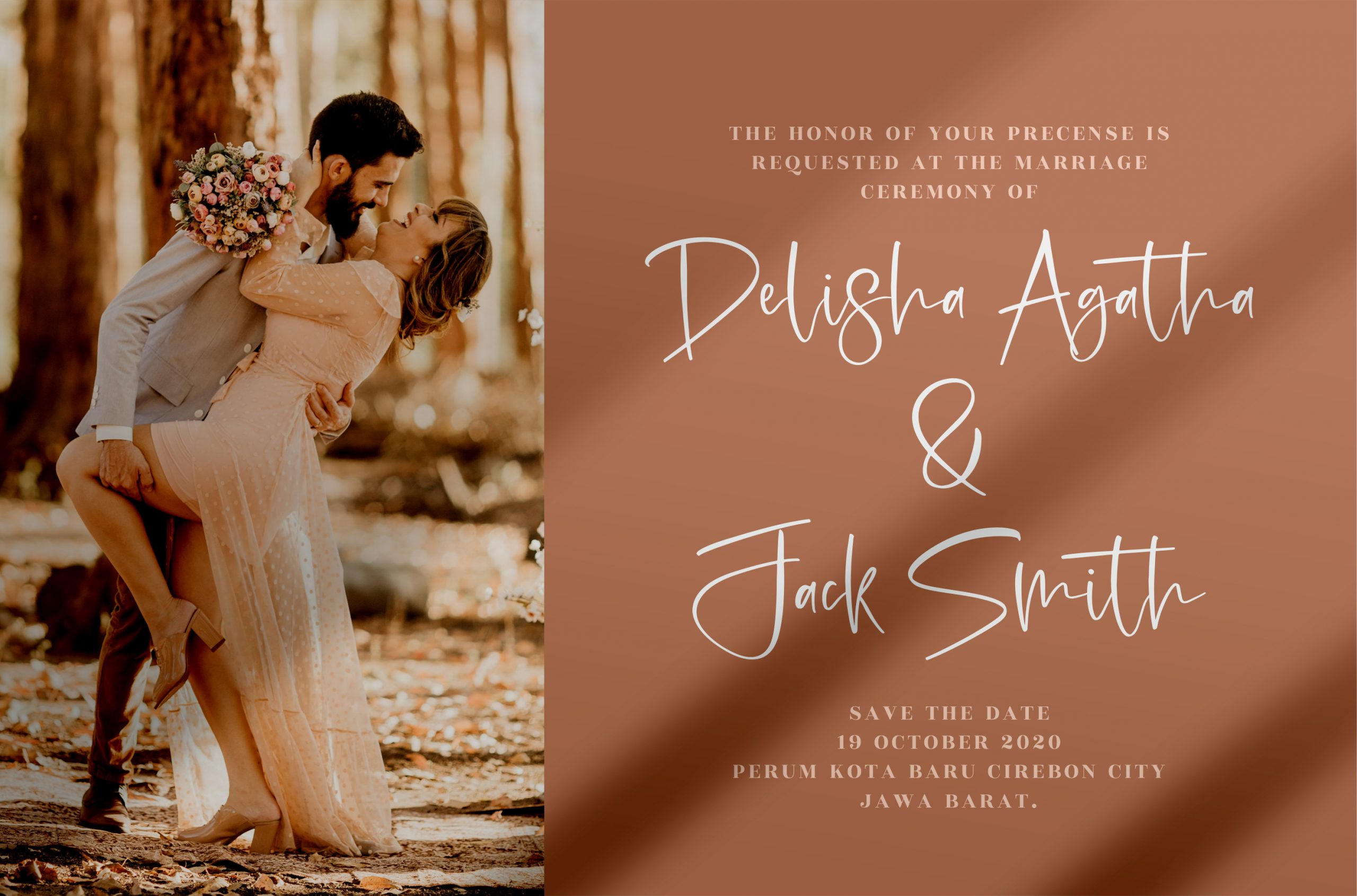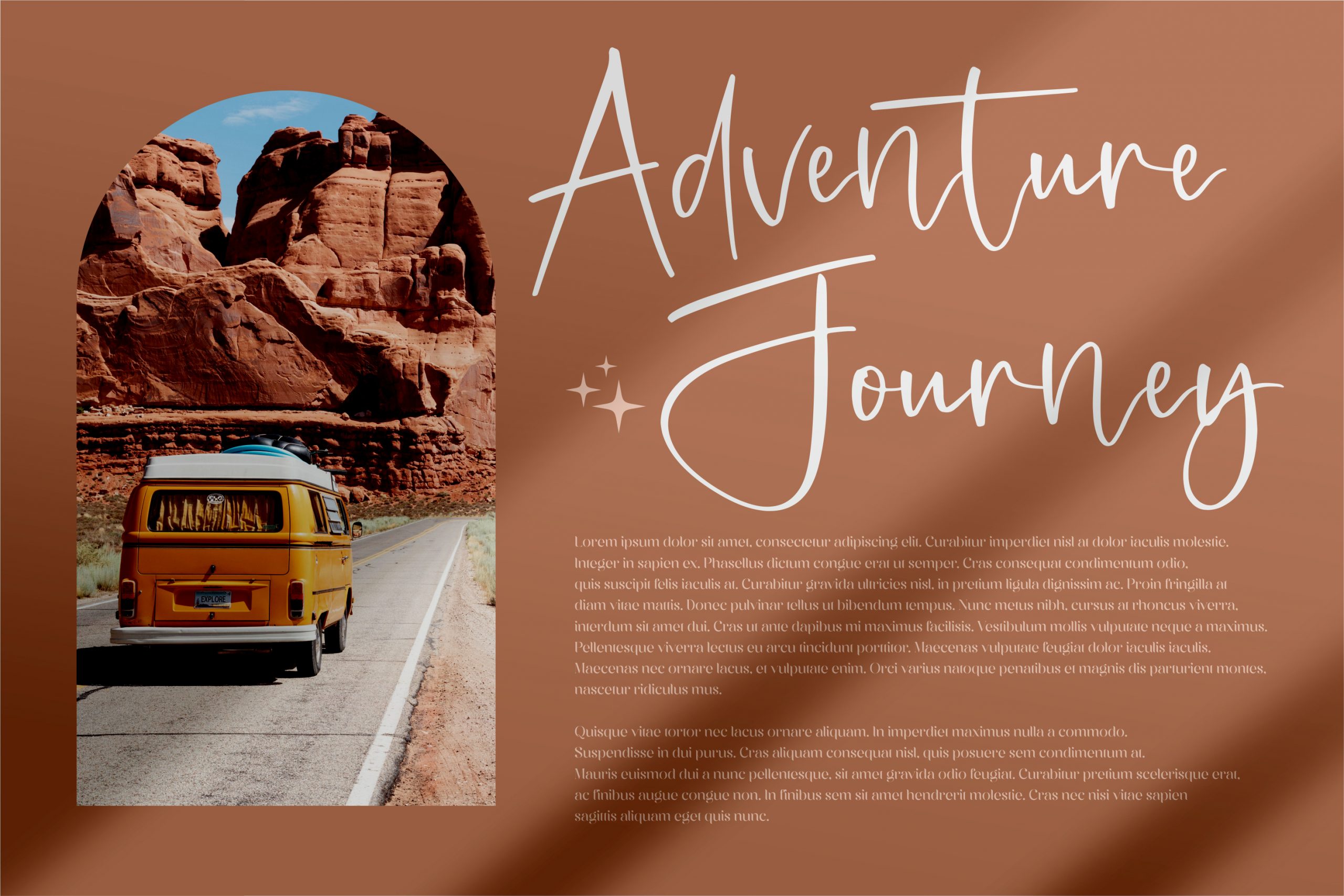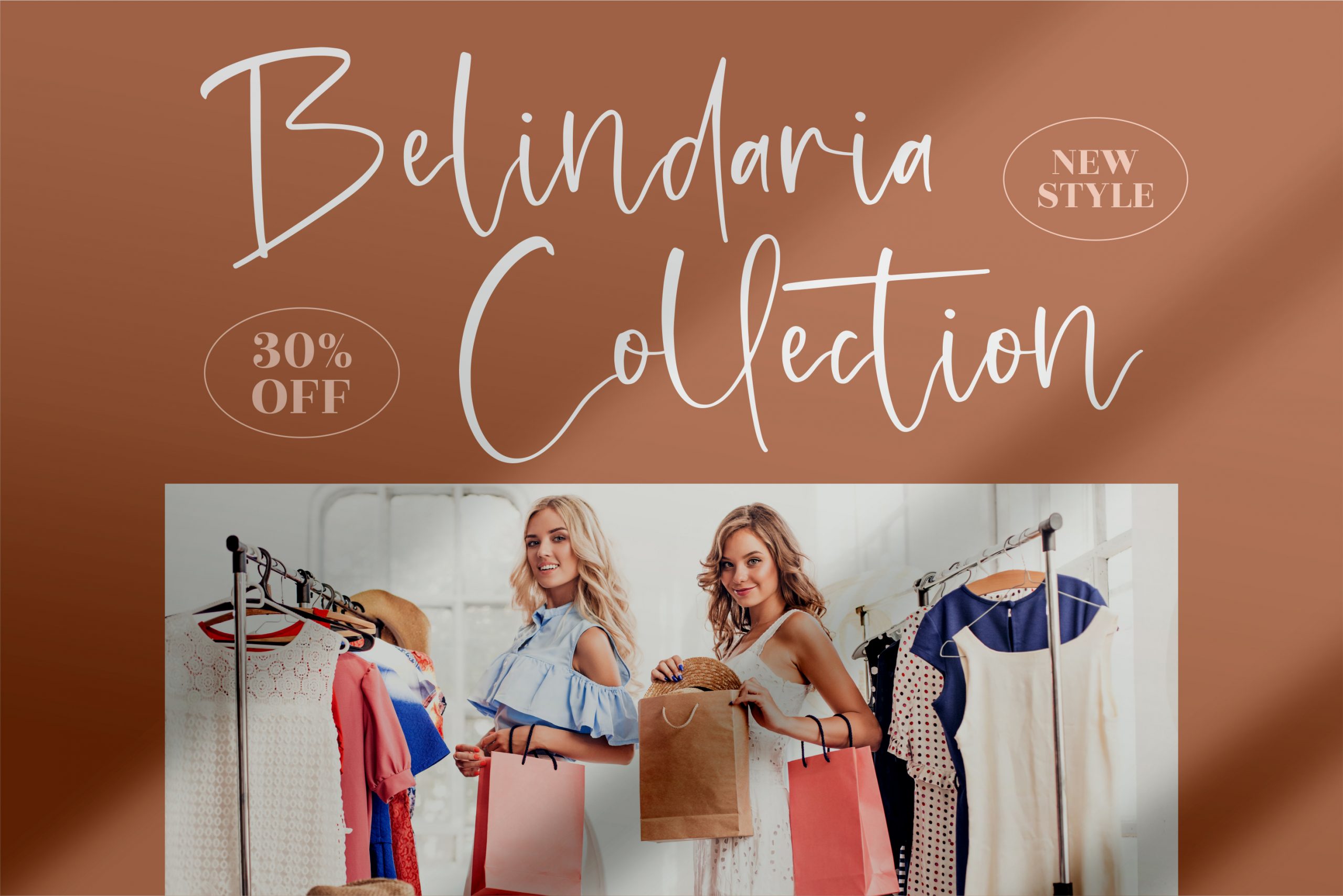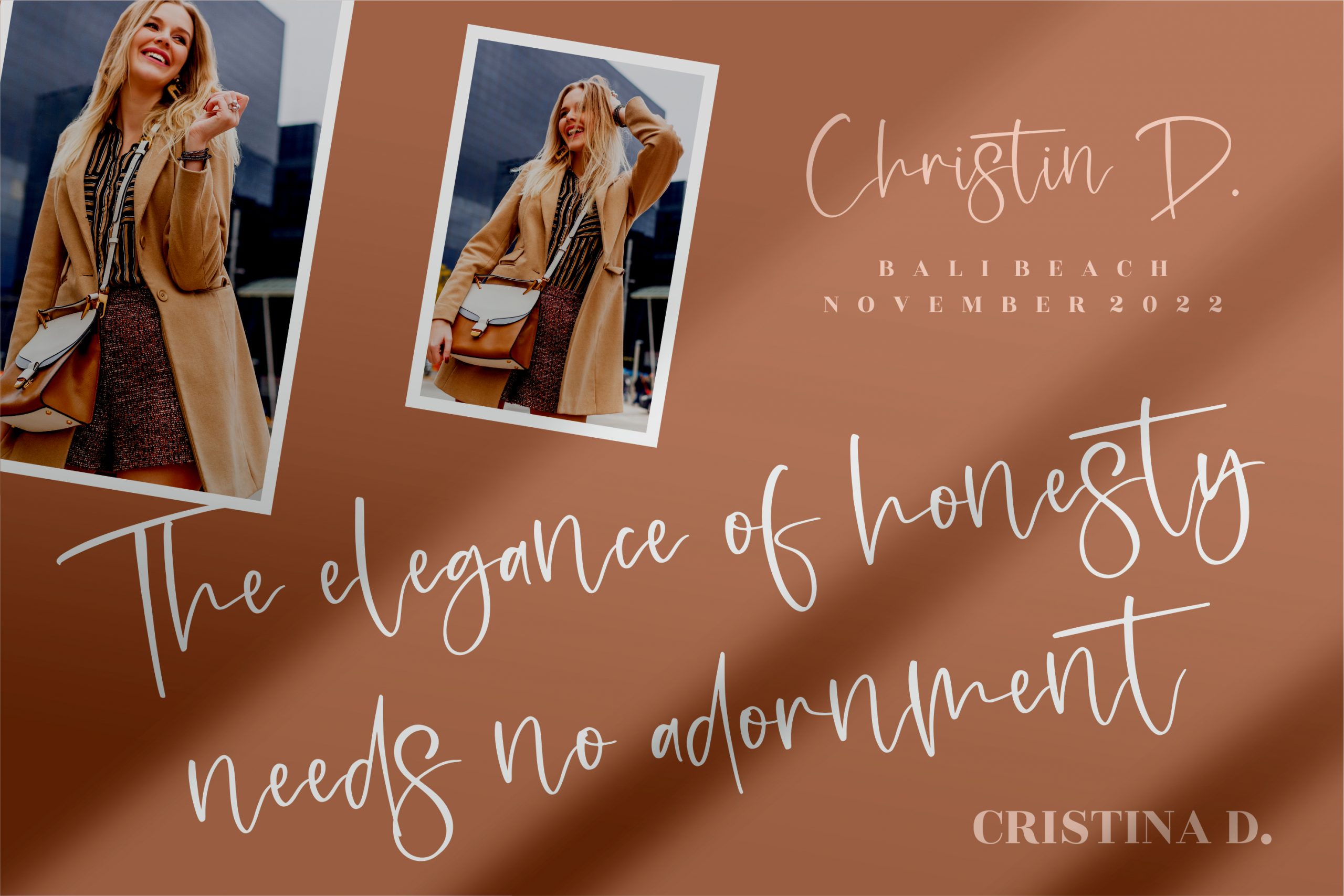
Jhollie Elisha Font
Jhollie Elisha Script Font
This is a handwritten font, suitable for any projects such as: logos, branding projects, homeware designs, product packaging, mugs, quotes, posters, shopping bags, t-shirts, book covers, name card, invitation cards, greeting cards, label, photography, watermark, special events, and all your other luxury projects that need a handwritten taste.